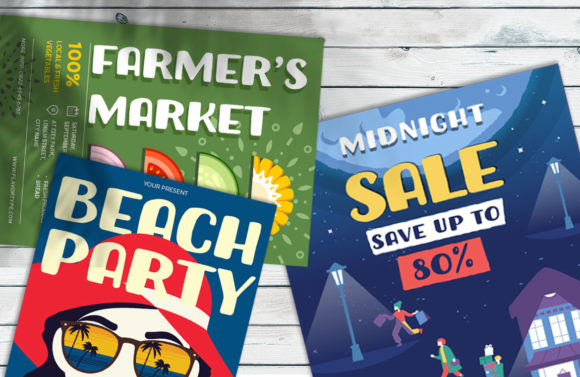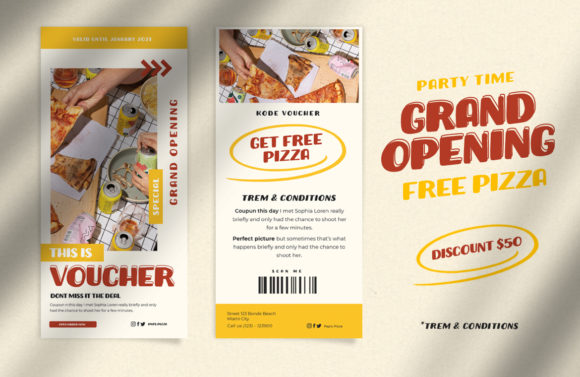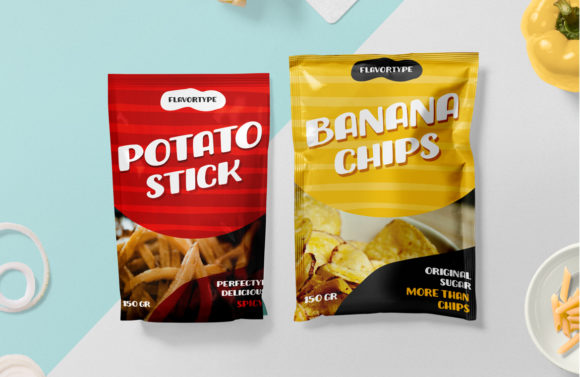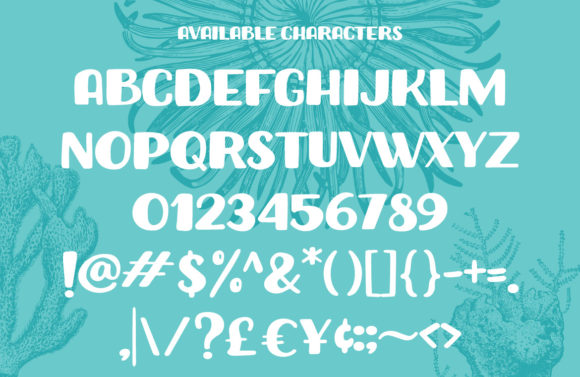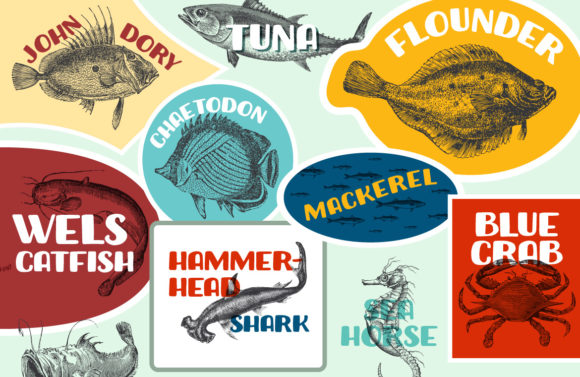
Introduction to PhileaBold Font
Create gorgeous and timeless designs with PhileaBold, an interesting and unique display font.
Fall in love with its incredibly stylish look and use it for logos, quotes, invitations, business cards, power point presentations, and more .
Key Features of PhileaBold Font
Why Choose PhileaBold Font?
PhileaBold Font offers exceptional quality and versatility, making it a valuable addition to your design toolkit. Whether you’re creating for personal projects or commercial use, PhileaBold Font delivers professional results.